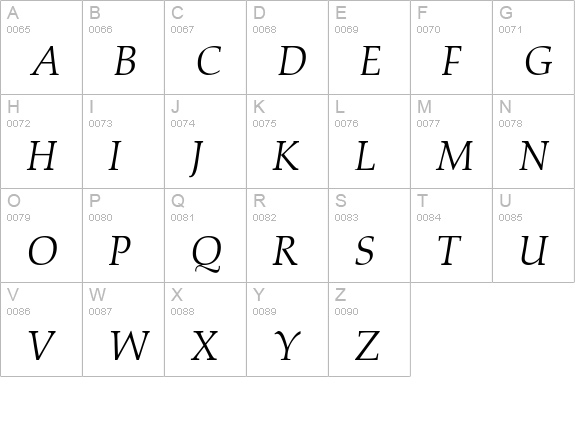
A760-Roman-Italic is a distinctive, italic variant in the A760 typeface family \xE2\x80\x94 well suited to design and typography projects.
A760-Roman-Italic is a classic and elegant font reminiscent of ancient Roman calligraphy. Its sleek and flowing design makes it perfect for adding a touch of sophistication to any project. The italicized style adds a sense of movement and grace to the text, making it ideal for conveying a sense of timelessness and refinement. Best of all, A760-Roman-Italic is available for free download at FontsMarket.com. This means you can easily access this stunning font to elevate your designs without any cost. So why wait? Download A760-Roman-Italic today and bring a touch of Roman-inspired beauty to your projects.